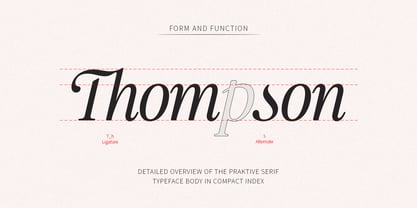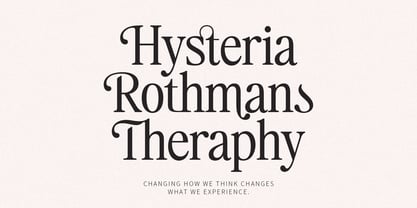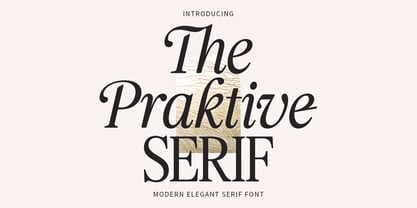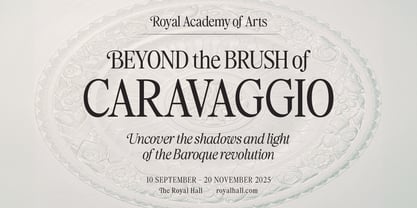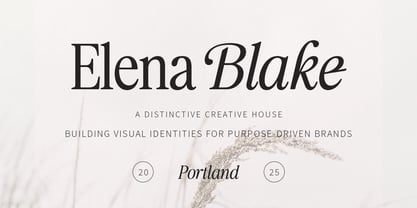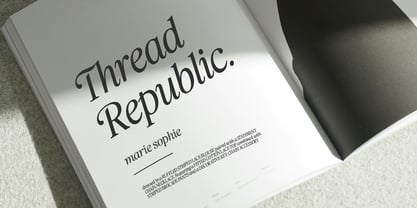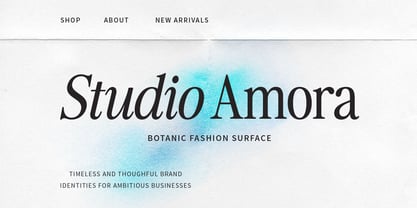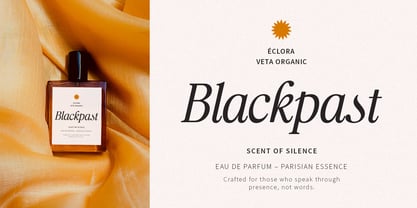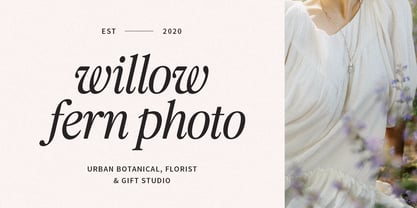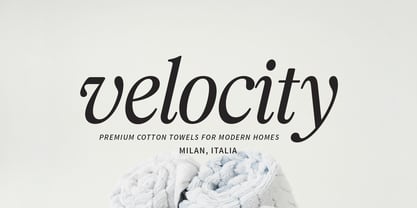
Praktive
The Praktive Font Family was designed by Muammar Kadafi and published by Attract Studio. Praktive contains 2 styles and family package options. More about this family
Praktive is a retro-modern typeface that brings back the classic feel of early computers and 80s print ads, this font brings a sense of nostalgia combined with a clean and elegant look.
With its designed details, this font is an ideal choice for creative projects that want to combine old-school aesthetics with contemporary style.
Suitable for use in web design, social media content, to attention-grabbing typographic works. Praktive offers high flexibility for designers who want to create visual works with a vintage touch, but still feel fresh and relevant for today.